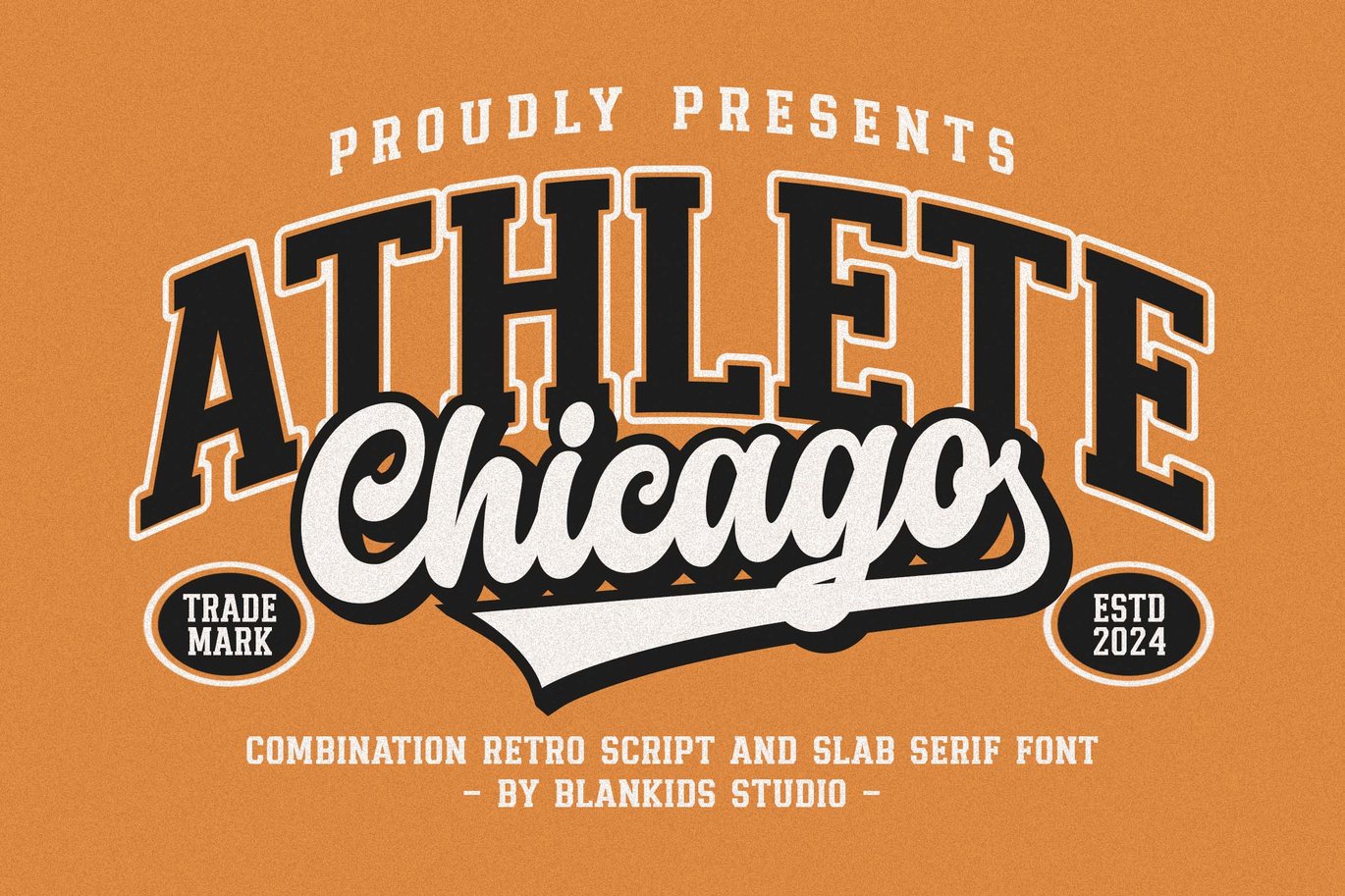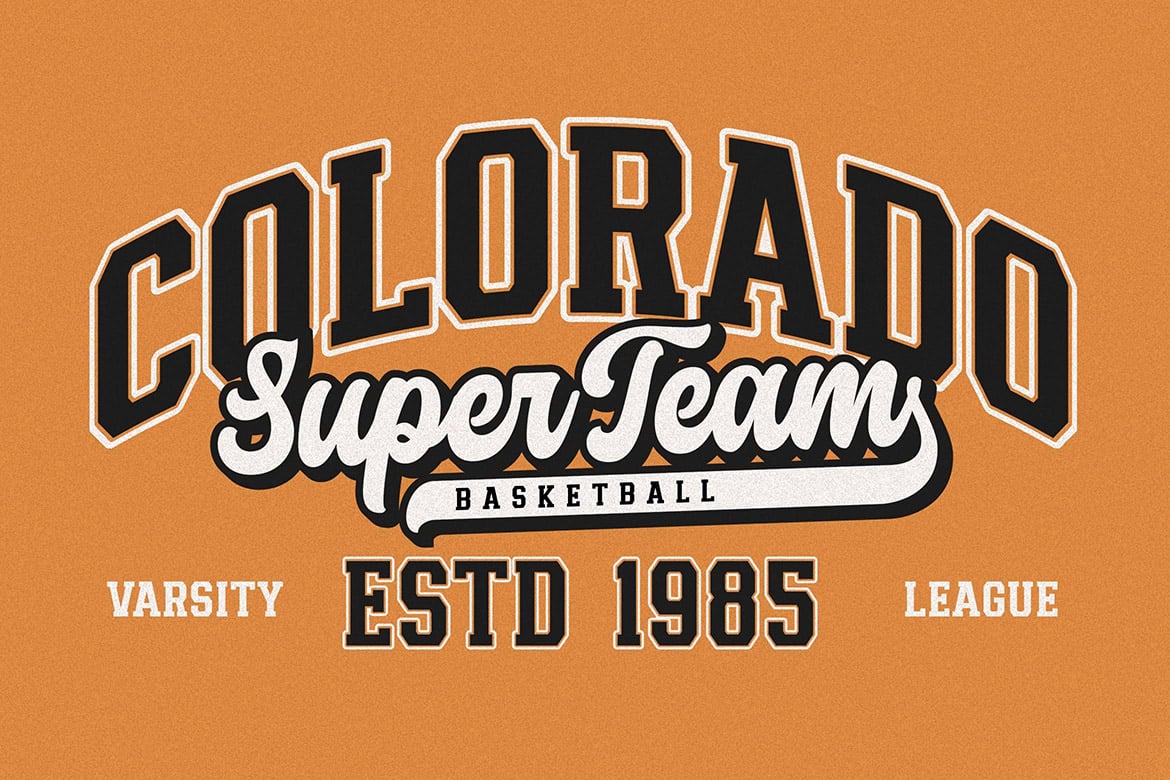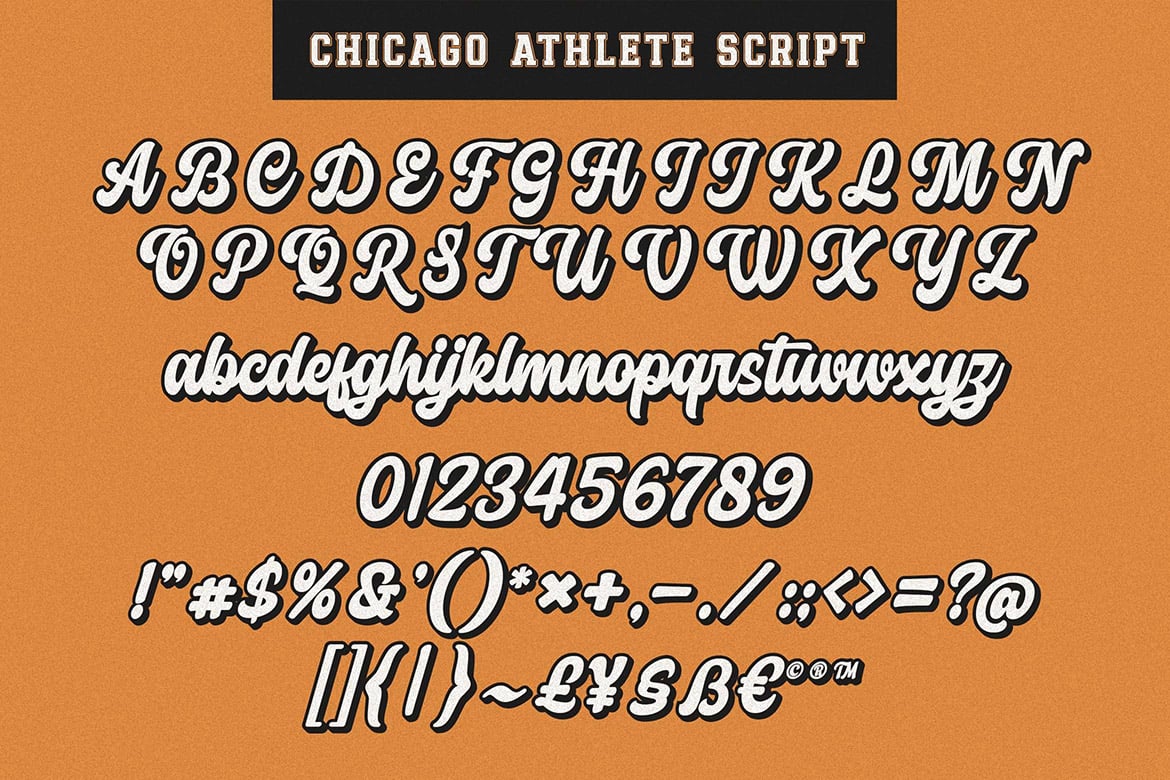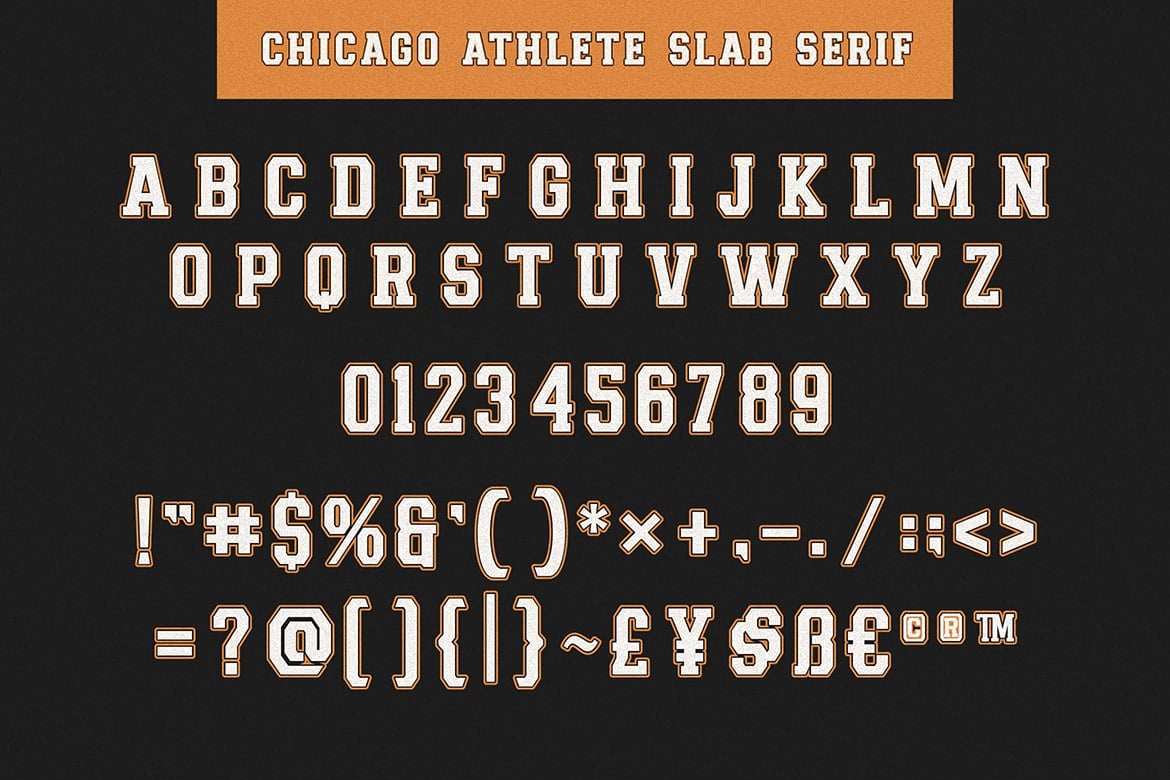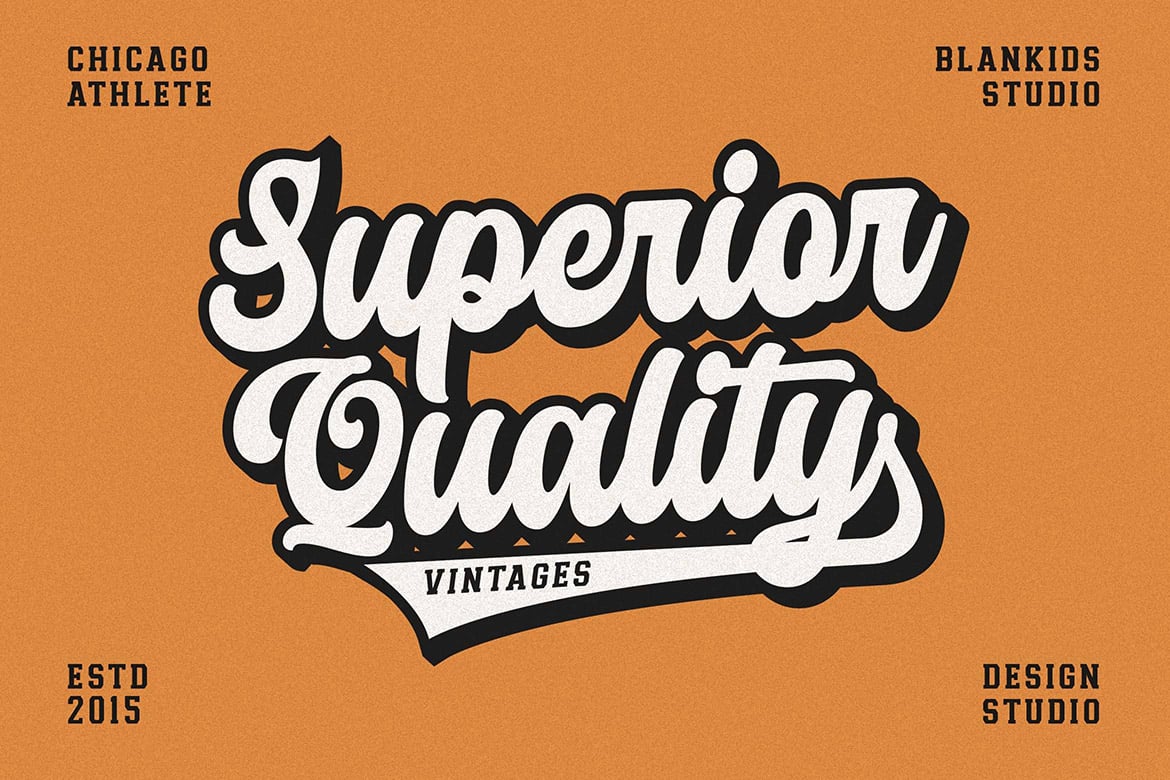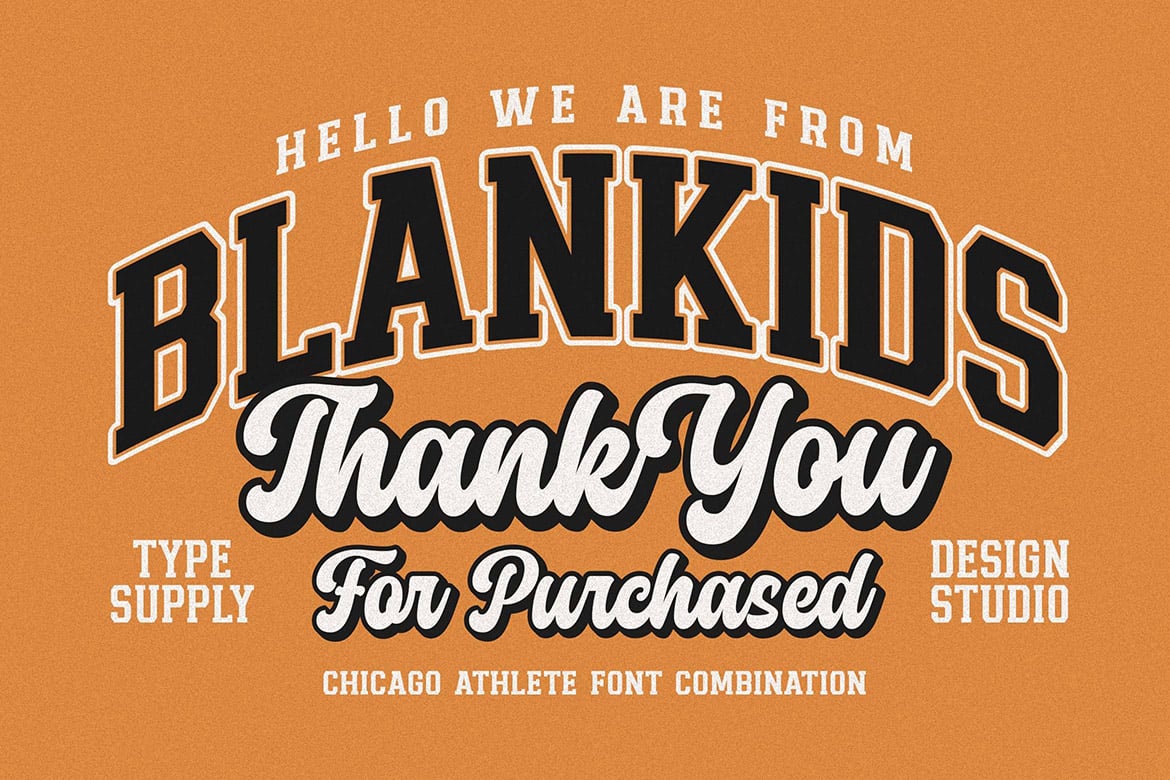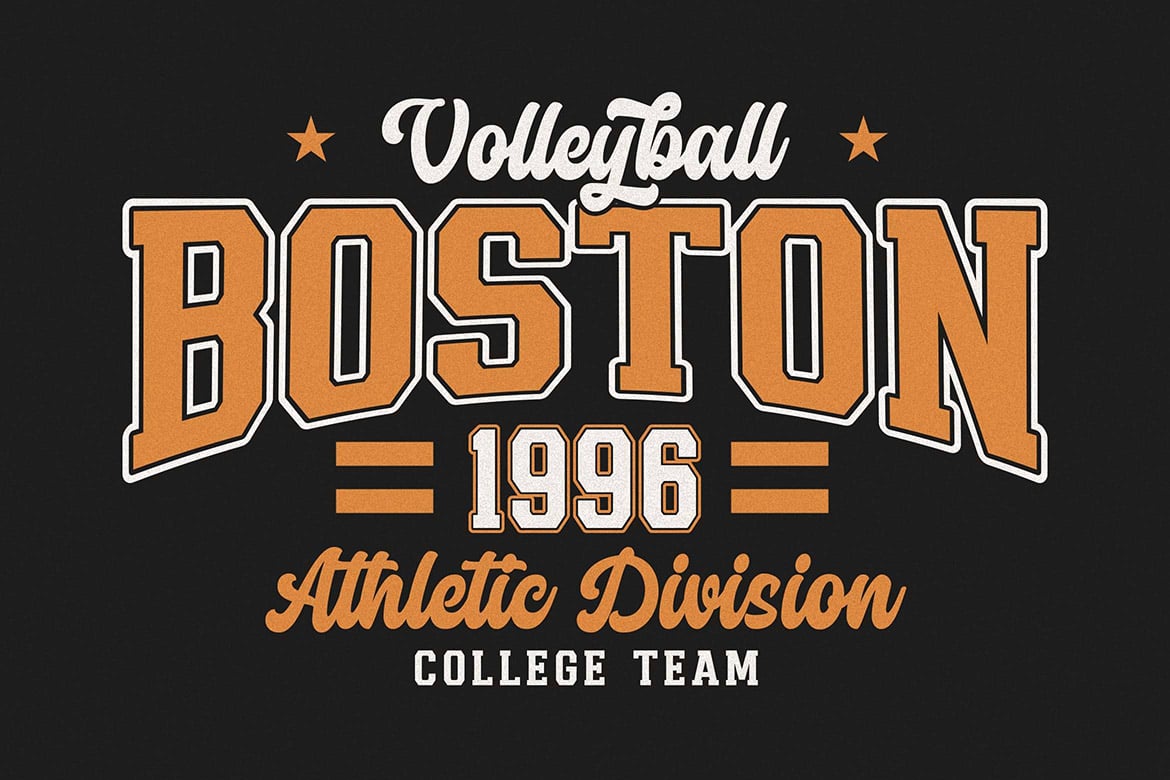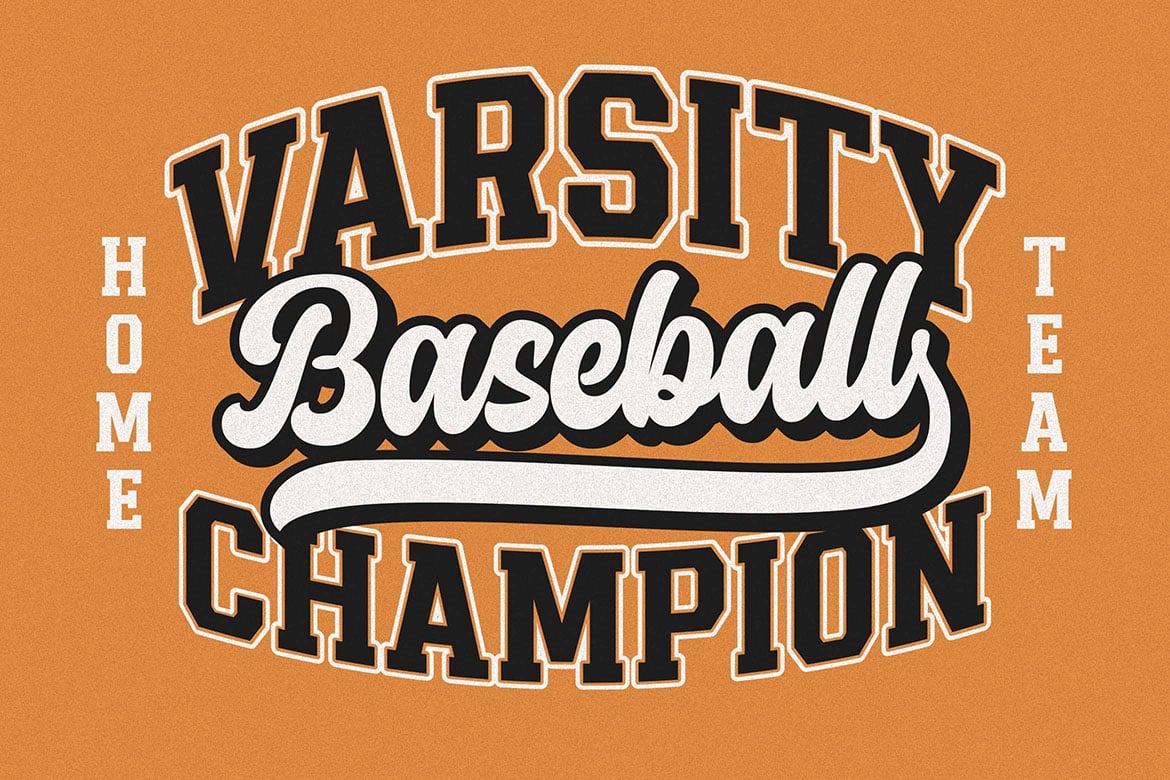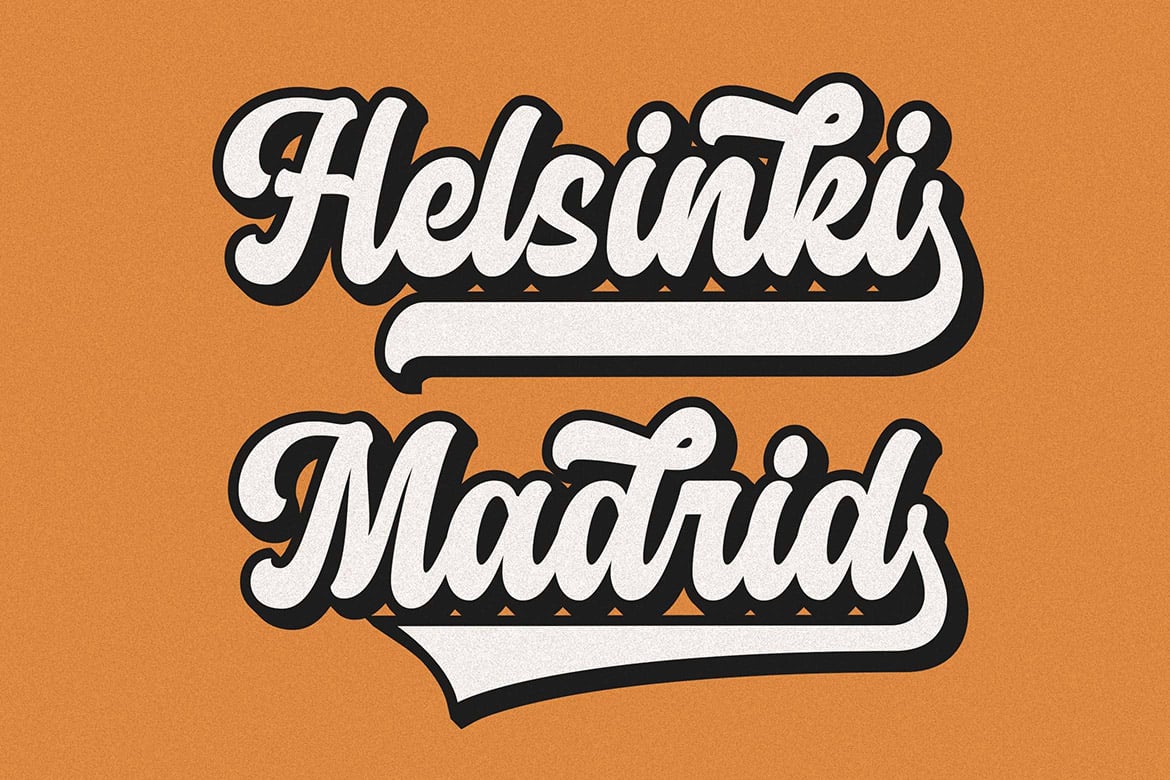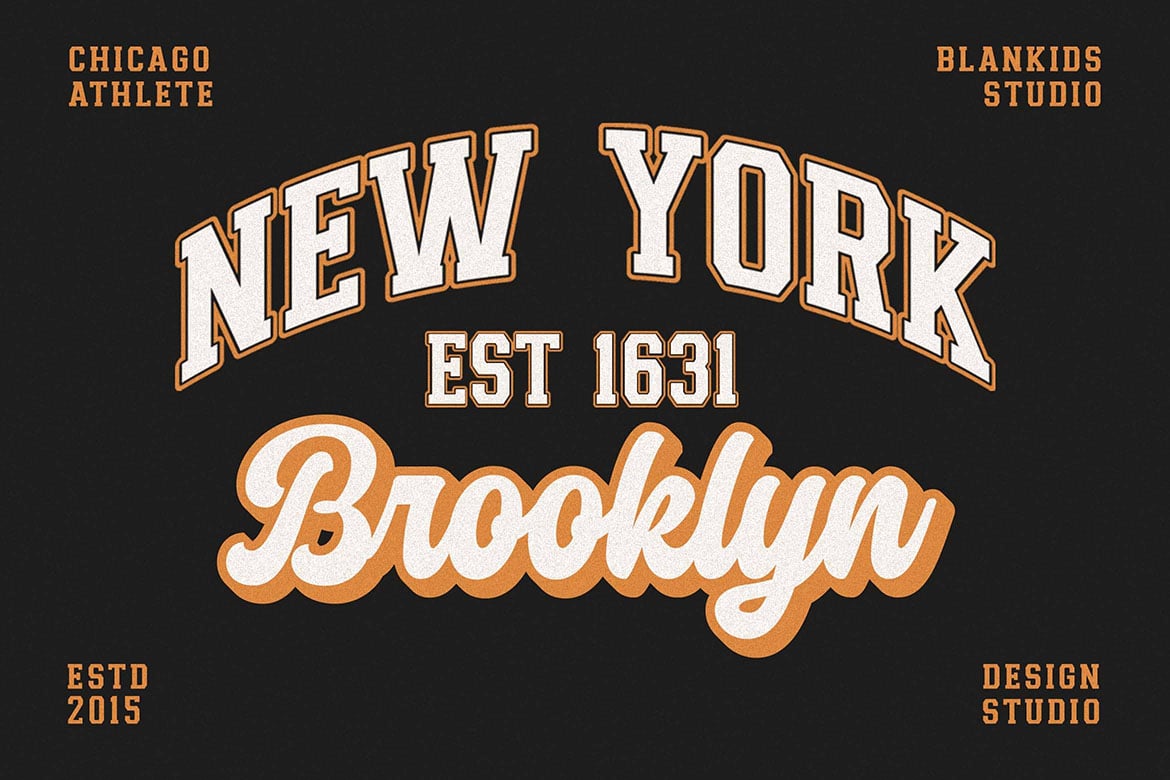
Chicago Athlete a Retro Sporty Font
Hello, awesome people! This time, we have a new font called Chicago Athlete a retro sporty font combination by Blankids Studio.
Chicago Athlete a retro sporty font combination is made for any professional project branding, such as logotype, watermarks, poster, branding, promotions, product packaging, etc. Every letter has a retro sporty and varsity style design. This font comes in 4 font combination.
Chicago Athlete font includes a full set of retro sporty uppercase and lowercase letters, numerals and punctuation. This font has a retro sporty style. See the previews above to get some inspiration on how to use them. Happy designing!